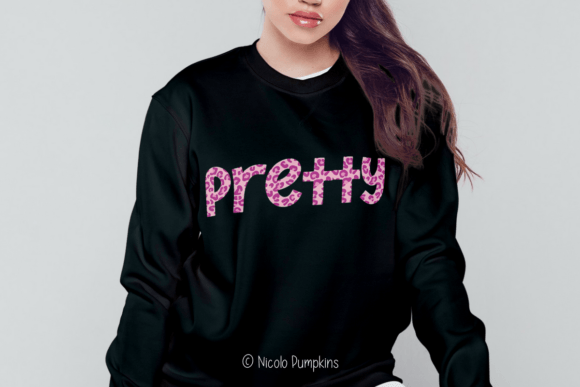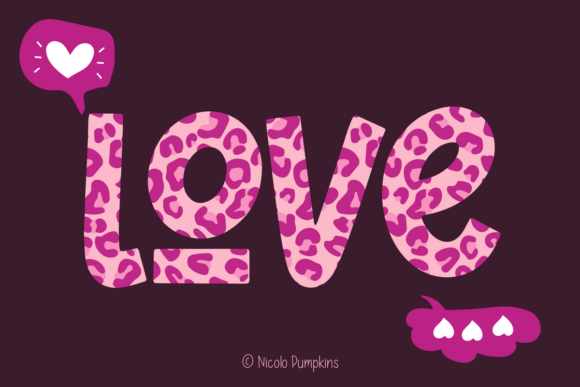
About Leopard Light Pink Font
Introducing Leopard Light Pink, a chic, cute, and friendly color font designed specifically for women’s designs. This font is the perfect choice for adding a touch of elegance and playfulness to your creative projects. Whether you’re designing t-shirts, tote bags, hats, stickers, wedding materials, logos, cards, quotes, or any other women-centric design, Leopard Light Pink will make your ideas shine and stand out.
With its soft pink hue and stylish leopard print pattern, this font exudes charm and sophistication. The combination of the light pink color and the playful leopard spots creates a delightful contrast that appeals to feminine aesthetics. Leopard Light Pink font adds a touch of glamour and whimsy to any design, making it perfect for various applications.
From fashion-forward apparel to stylish accessories and beyond, Leopard Light Pink font is versatile and adaptable. Use it to create trendy and eye-catching designs for women’s clothing, accessories, and merchandise. The font’s friendly and approachable style also makes it suitable for wedding designs, greeting cards, quotes, and social media graphics, where you want to convey a sense of warmth and femininity.
Leopard Light Pink font is designed to make your creative ideas pop. Its chic and cute appearance instantly grabs attention and creates an impact. Whether you’re working on personal projects, branding materials, or client work, this font will help you achieve a stylish and memorable look.
Let Leopard Light Pink font be your go-to choice for all your women’s design needs. Embrace its chic and friendly vibe, and watch as your creations come to life with a touch of elegance and playfulness. Stand out from the crowd and make a statement with Leopard Light Pink font. It’s time to unleash your creativity and make your designs truly shine.